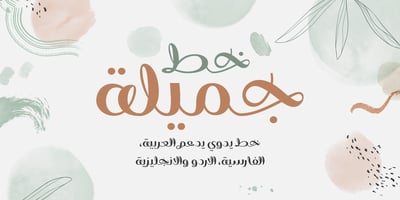
YR Gamila
YR Gamila font
YR Gamila Font Family was designed by Yusuf Refaiy and published by Alrefaiy. YR Gamila contains 1 styles and family package options. YR Gamila is a stunning handwritten font that exudes both class and modernity. It boasts a comprehensive set of basic glyphs, encompassing uppercase and lowercase letters, numbers, and symbols.YR Gamila font is perfect for elevating a variety of design projects, such as logos, cards, prints, social media graphics, menus, books, wedding invitations, and much more. Its sophisticated and contemporary aesthetic lends a touch of elegance to any creative endeavor.